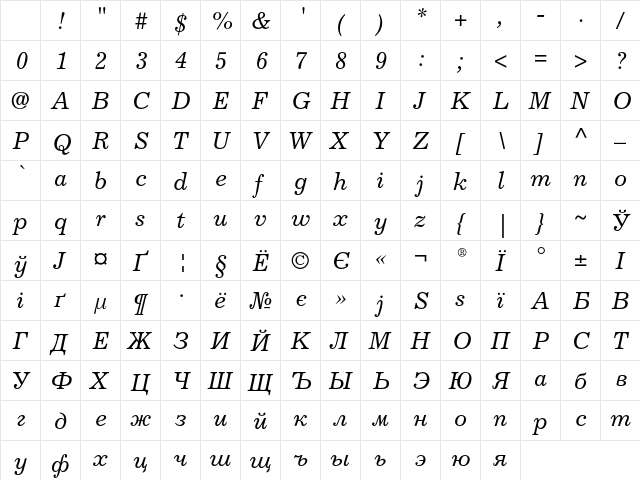
Complete Excelsior Cyrillic Inclined glyph index. Displaying only characters natively supported by Excelsior Cyrillic Inclined font.
Excelsior Cyrillic is a composed and adaptable typeface that performs quietly and consistently across a wide range of design contexts.